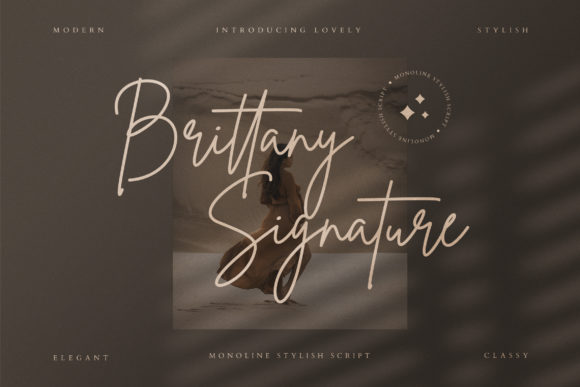
Introducing the Brittany Signature Script Font, a creation of CreatypeStudio that is set to elevate your designs to the next level. This incredible script font is not just any other font, it is a masterpiece that exudes sophistication and elegance in its every curve and flow.
With its unique and fashionable signature style, Brittany Signature is the perfect font for all your branding projects, logos, wedding designs, social media posts, advertisements, product packaging, and any other design that requires a handwritten feel.
Whether you're a professional designer or a DIY enthusiast, Brittany Signature has everything you need to create stunning designs that stand out. With its inky flow and stunning curves, this font family is guaranteed to make your designs captivating, eye-catching, and unforgettable.
Using the Brittany Signature Script Font in your designs is an excellent way to add a personal touch that speaks to your audience. This font is a perfect fit for a wide range of design projects that require an emotional and creative touch.
With Brittany Signature, you can take your designs to the next level and create a unique and unforgettable impression on your audience. This font family is not just a tool; it is an experience that will elevate your designs and bring them to life.
In conclusion, if you're looking for a font that is stylish, sophisticated, and unique, look no further than the Brittany Signature Script Font. It is versatile and perfect for any design project you may have in mind. Download it today and experience the magic for yourself!